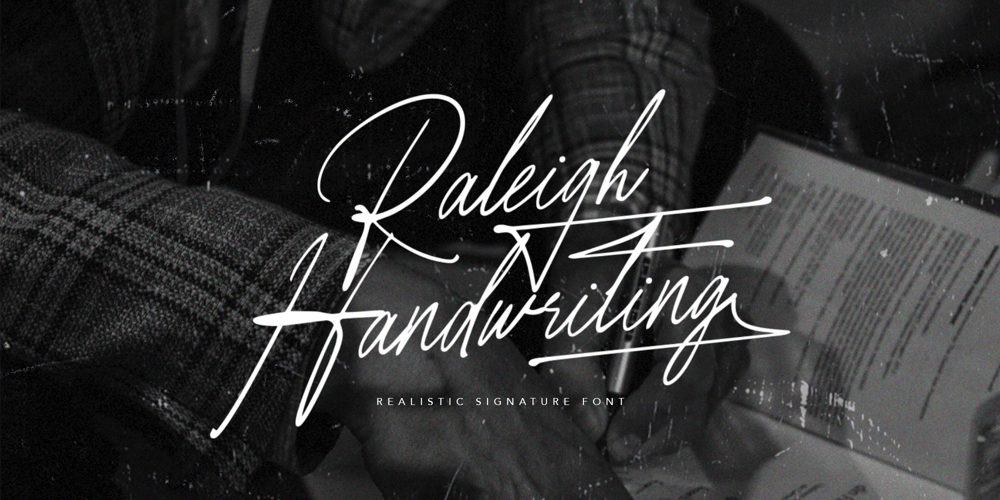
Raleigh Handwriting Font Family was designed by Sarid Ezra, Dzikrul Aulia and published by Bale Type. Raleigh Handwriting contains 1 styles and family package options. Raleigh Handwriting is a signature script that will bring realistic handwriting for your projects. You can use this font for many purposes, such as wedding invitation, logotype, signature, and more. This font also support multi language!